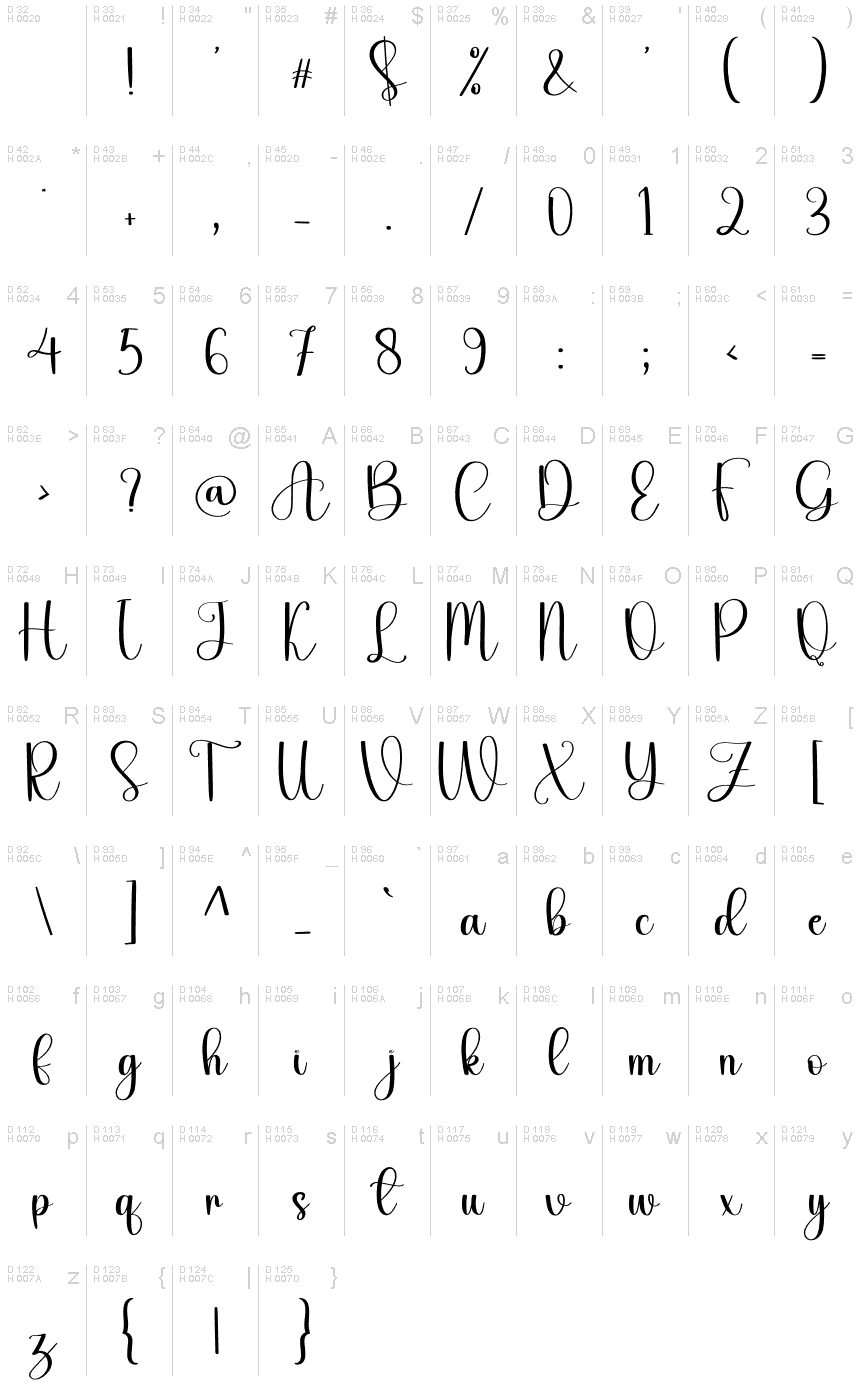
Cloudy
Cloudy, a captivating calligraphy font designed by Harlek Studio, exudes elegance and charm. With its semi-light weight, Cloudy lends a delicate touch to any project.
Its graceful curves and flowing lines make it perfect for wedding invitations and romantic stationery. This font adds a touch of sophistication to branding materials, including logos and packaging designs. Cloudy's versatility also shines through in social media graphics, creating eye-catching posts that capture attention.
Whether used for blog headers or product labels, Cloudy brings a touch of ethereal beauty to any project.